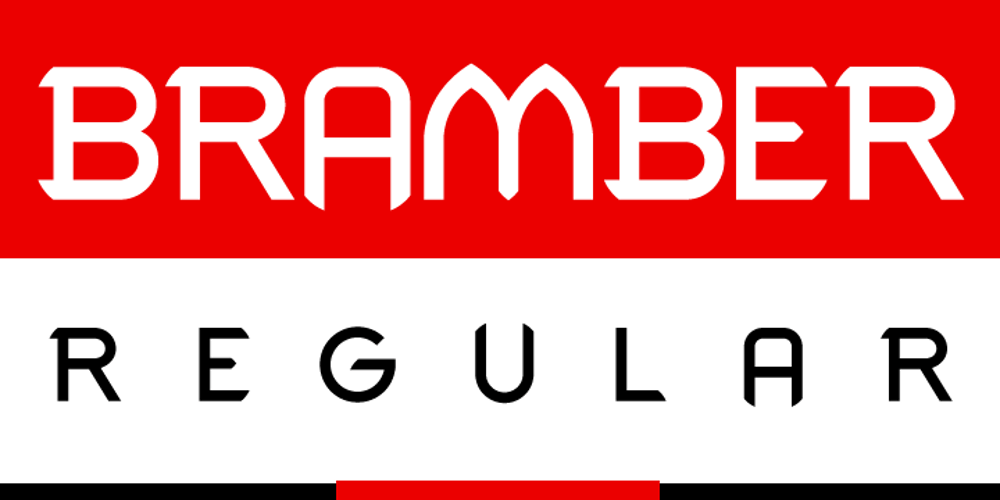
Bramber Font Family was designed by Patrick Molloy and published by Rocket 88 Foundry. Bramber contains 2 styles and family package options. The design of Bramber was inspired by Allied propaganda posters of the second World war, especially Russian posters. It has a distinctive solid, geometric appearance. Bramber also has a feel of mid 1980s design. Bramber is ideal for use as a distinctive headline or display font.